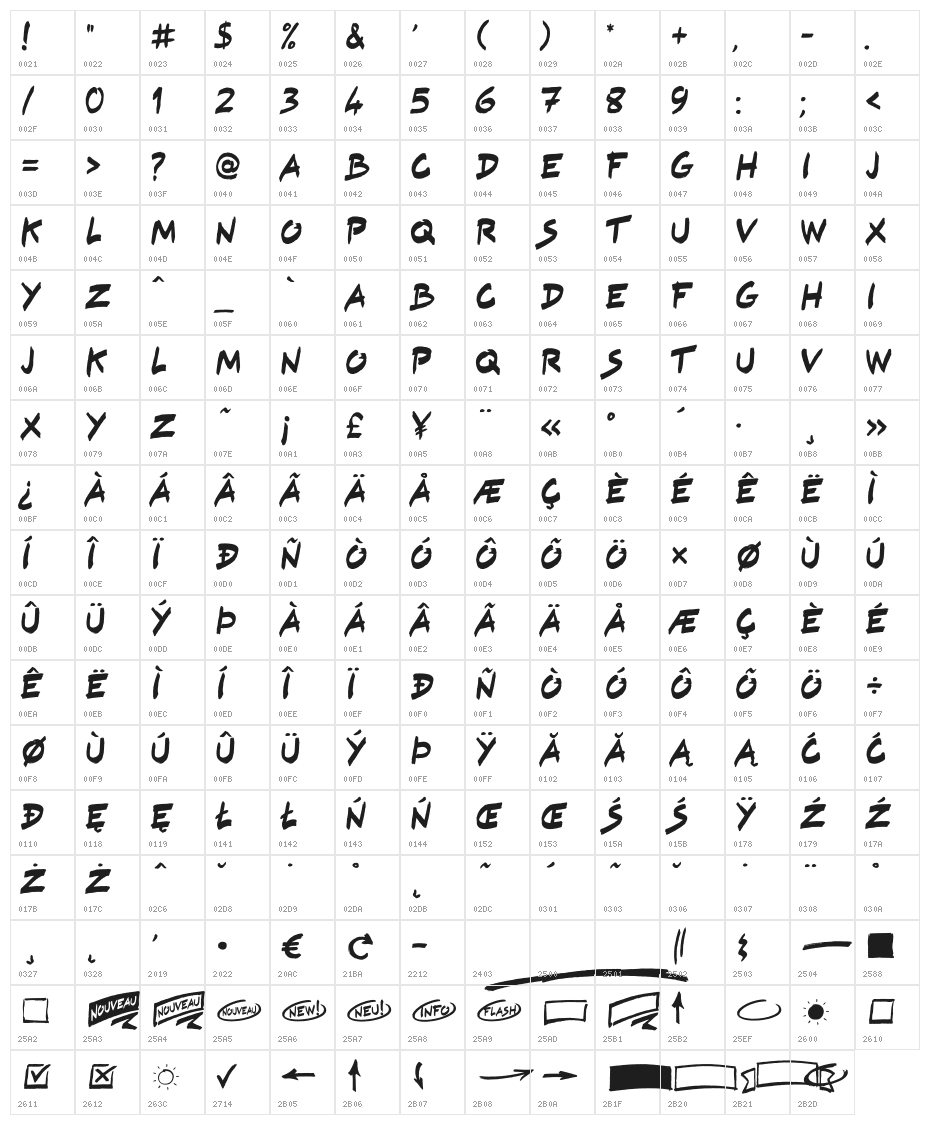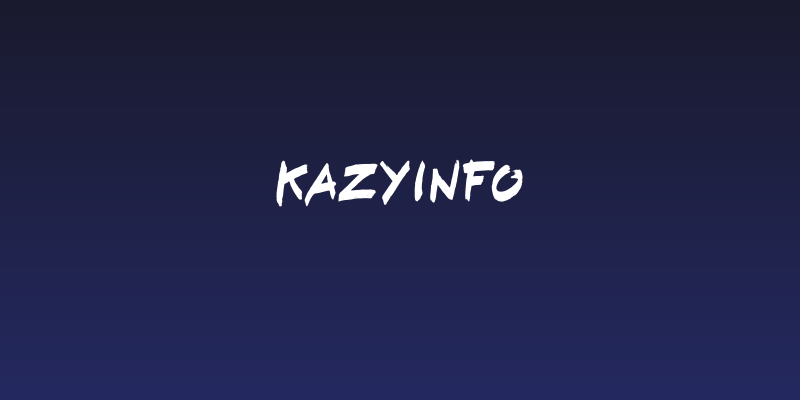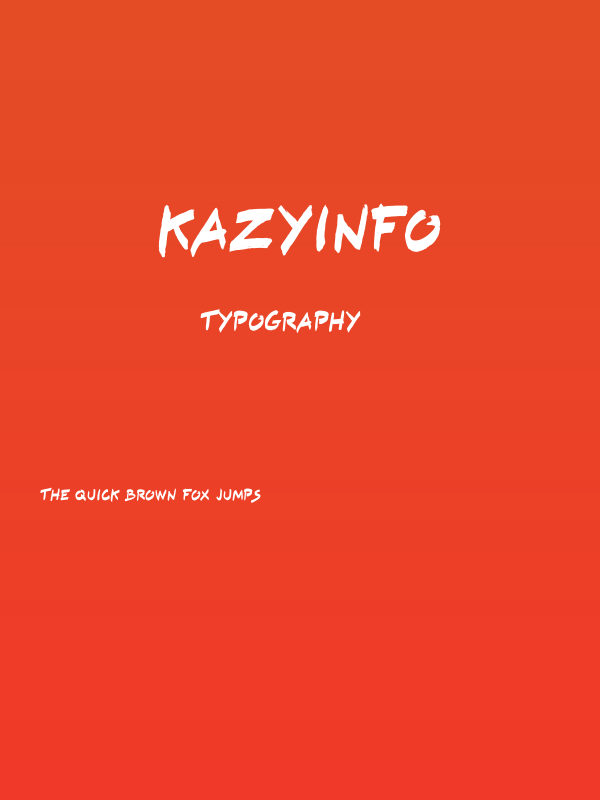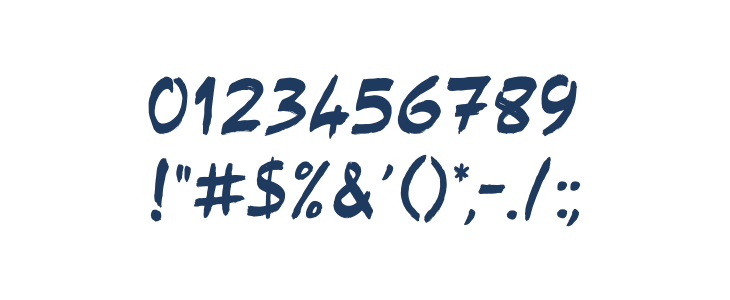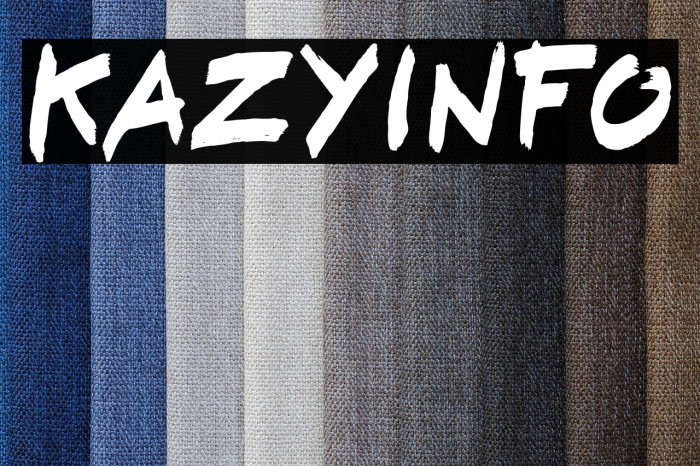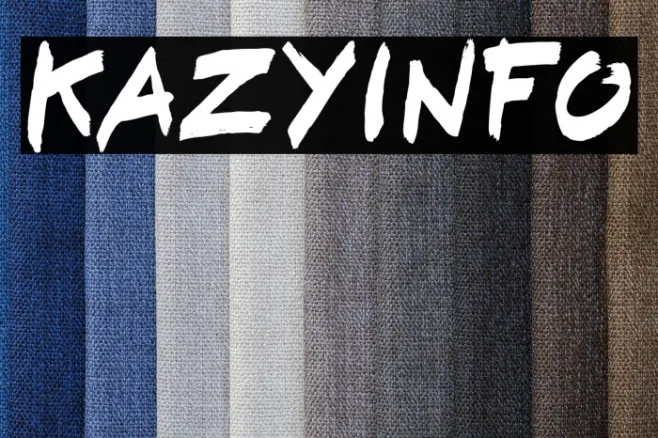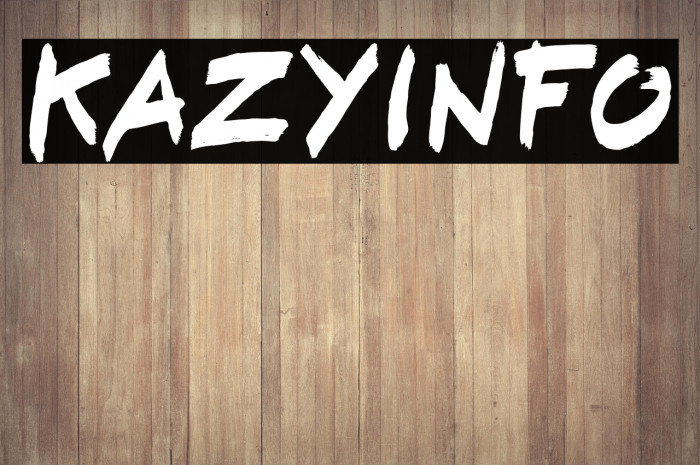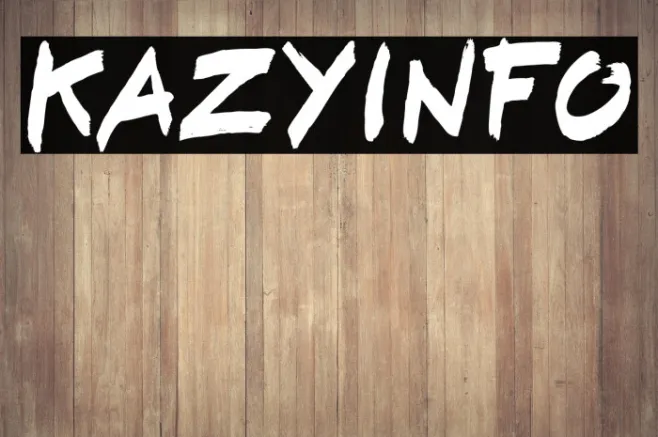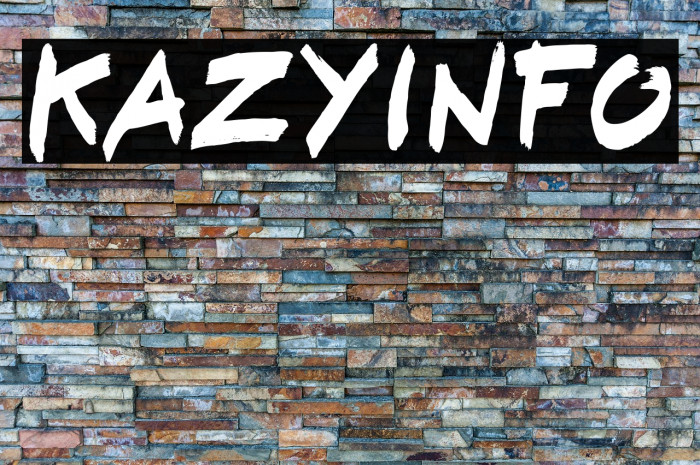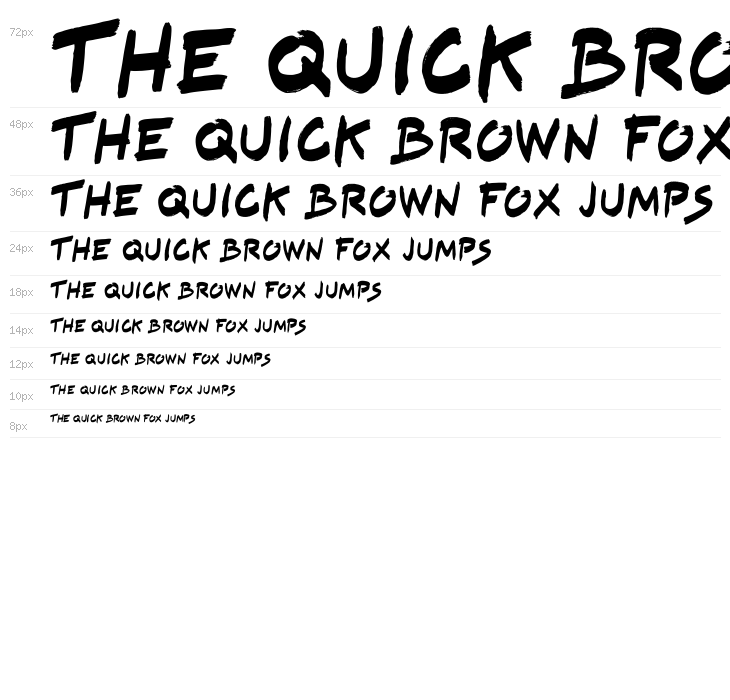
KAZYinfo Font
KAZYinfo Description
This font features a bold and dynamic handwritten style, characterized by its energetic and slightly irregular strokes. The letters have a casual and informal appearance, with a brush-like texture that adds a sense of movement and spontaneity. The uppercase and lowercase letters maintain a consistent style, with some variation in stroke thickness that enhances its lively feel. The numerals and special characters follow the same aesthetic, ensuring a cohesive look across all elements. This font's unique personality makes it stand out, perfect for projects that require a personal touch.
| Proposed Projects | Ideal for branding, posters, social media graphics, and any project needing a personal, lively touch. |